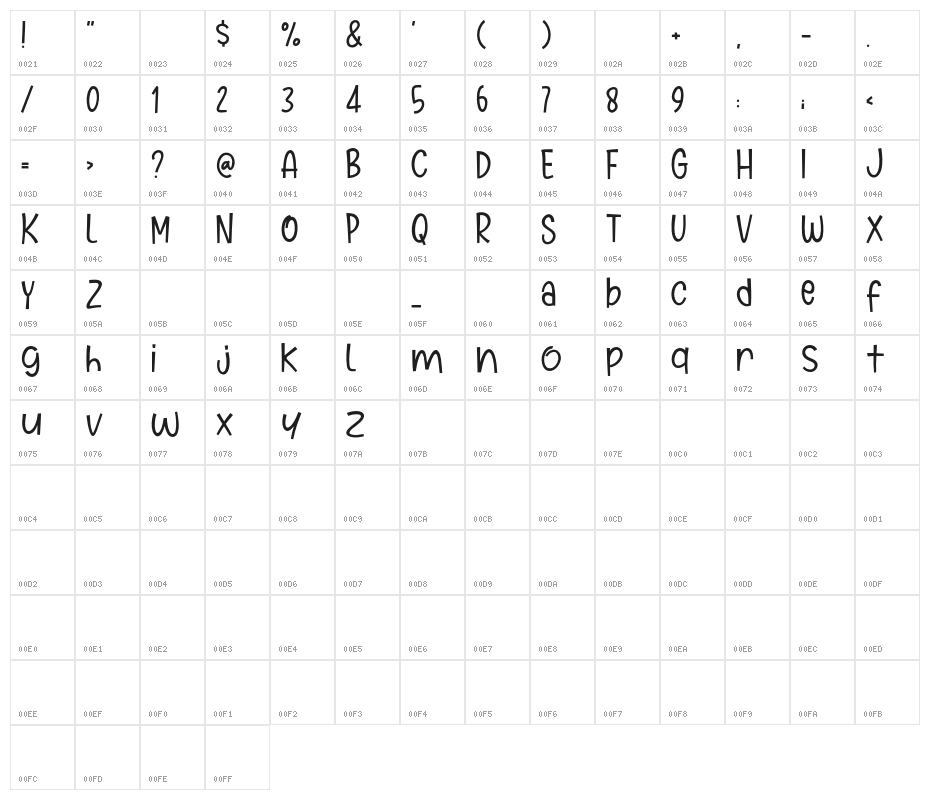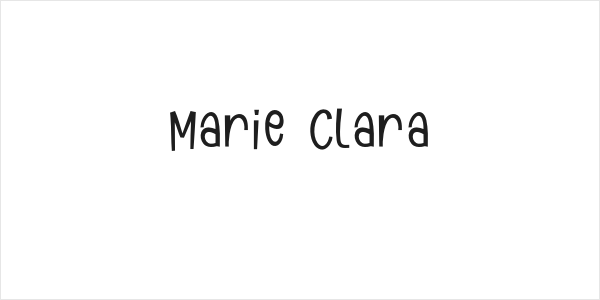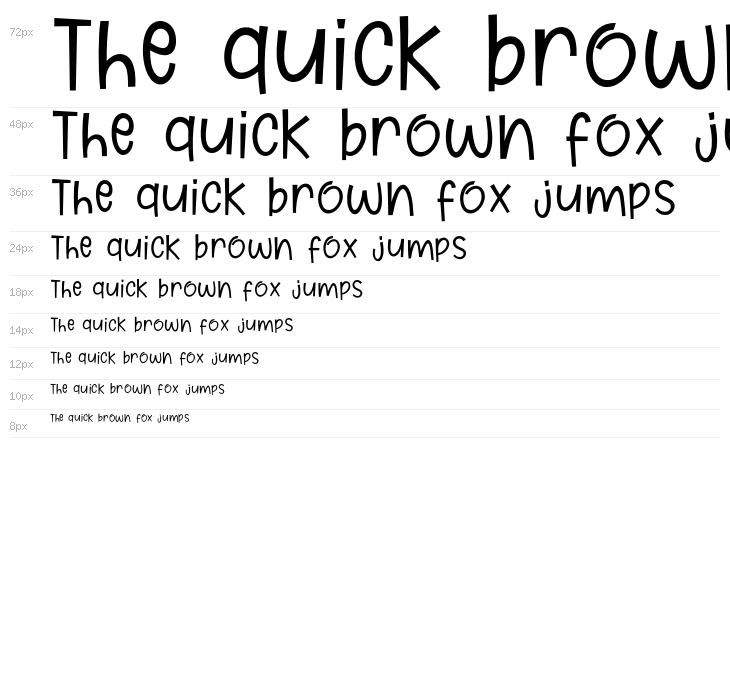
Marie Clara Font
Marie Clara Description
This font features a playful and whimsical style, characterized by its hand-drawn appearance. The letters are slightly irregular, giving it a casual and friendly feel. The uppercase letters are bold and rounded, while the lowercase letters maintain a consistent flow with a touch of quirkiness. The numbers are clear and easy to read, matching the overall style of the alphabet. Special characters are included, maintaining the same playful aesthetic. This font is perfect for projects that require a personal and approachable touch.
| Use Case | Headlines, Logos, Casual Text |
| Proposed Projects | Ideal for children's books, greeting cards, playful branding, and casual invitations. |